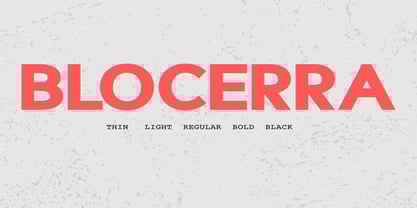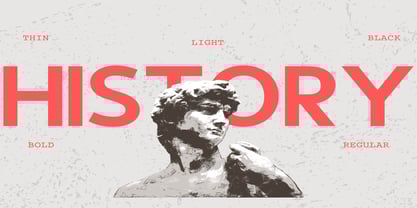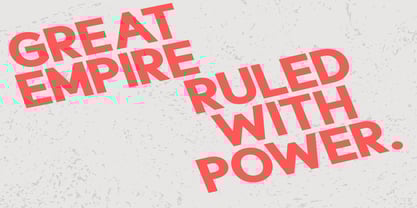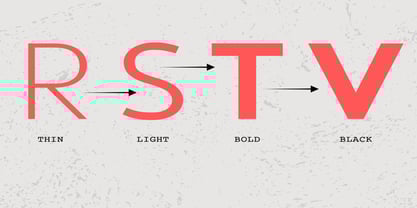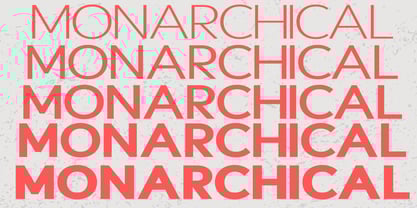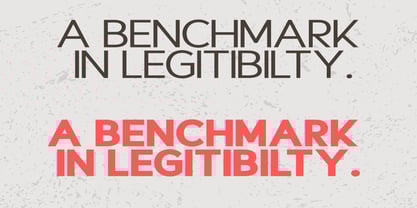
Blocerra
by Dream Font
The Blocerra Font Family was designed by Kamran Familbayli and published by Dream Font. Blocerra contains 5 styles and family package options.
Blocerra Sans is a sans-serif display typeface with a versatile and distinctive personality. The proportions exude strength and elegance, inspired by the Blocerra bone that symbolizes resilience. Perfectly suited for headlines, posters, and bold branding, Blocerra commands attention with its shapes and refined details. What truly sets Blocerra Sans apart are its playful touches: star-shaped tittles on the lowercase i and j add a celestial charm, while the unique style within the lowercase f, i, and j creates a captivating twist. Subtle brackets within the characters further elevate its modern sophistication. As a variable font, Blocerra offers seamless versatility, allowing you to fine-tune weight and width to suit any creative project. Make a bold yet elegant statement with Blocerra Sans!
Designers: Kamran Familbayli
Publisher: Dream Font
Foundry: Dream Font
Design Owner: Dream Font